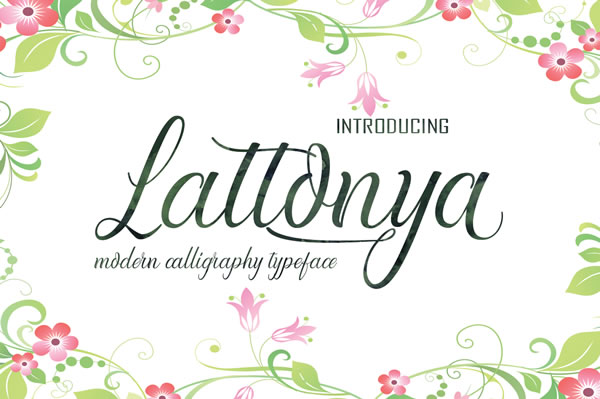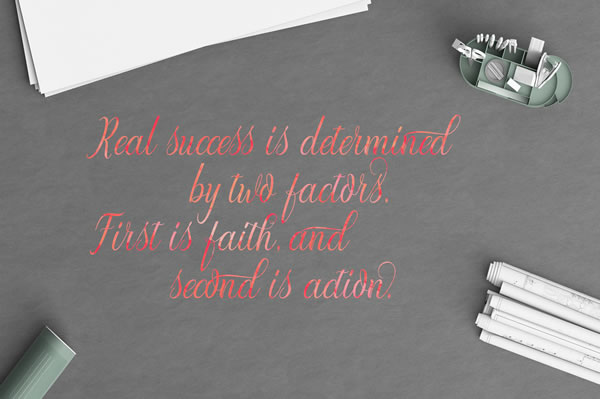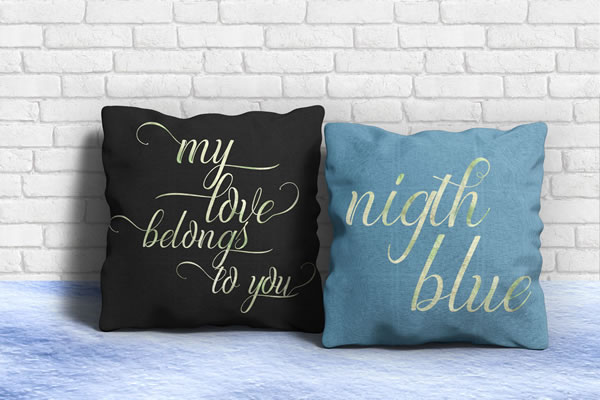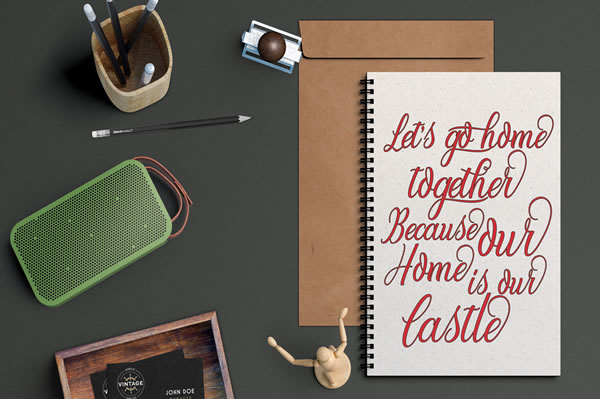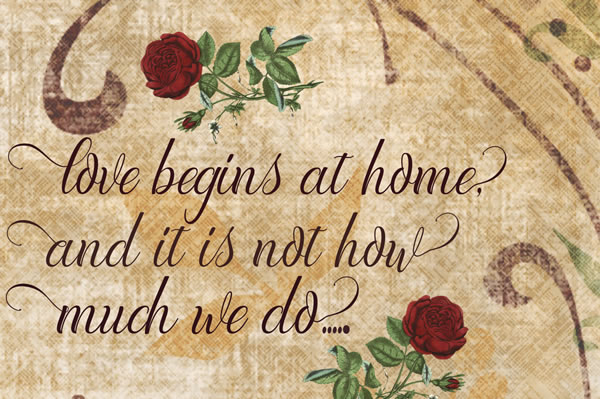
HomeScript FontsLattonya Font Script Fonts Lattonya Font FacebookXPinterestWhatsApp Lattonya Font Poster 2 Lattonya Font Poster 3 Lattonya Font Poster 4 Lattonya Font Poster 5 About Lattonya Font Lattonya is a handmade font. The characters of this font go up and down, smooth like a dancer. DOWNLOAD NOW People also explored First Choice Font Boldace Basella Font Candid Kisses Font Trust Me Font Lollitus Duo Font Christmas Internets Font Child Font El Jetra Font 290 0 TagsLattonya Font Previous articleShinthia FontNext articleChandele Font LEAVE A REPLY Cancel reply Comment: Please enter your comment! Name:* Please enter your name here Email:* You have entered an incorrect email address! Please enter your email address here Website: Save my name, email, and website in this browser for the next time I comment. Personal Use Free Banana Valentine Personal Use Free Read more about this font Mini Story Personal Use Free Read more about this font Frozdotre Personal Use Free Read more about this font Summer Pisces Personal Use Free Read more about this font BLOG Best Fonts for YouTube Videos: Make Your Thumbnails Stand Out Best Fonts for YouTube Videos: Make Your Thumbnails Stand Out Choosing the right font can make a massive difference in how your YouTube videos perform.... Transform Your Website: Elevate Your Typography with 7 Best Web Font Generators Top 7 Google Fonts Alternatives for Faster and Privacy-Friendly Web Design (2025) Modern Sans-Serif Fonts That Brands Love in 2025